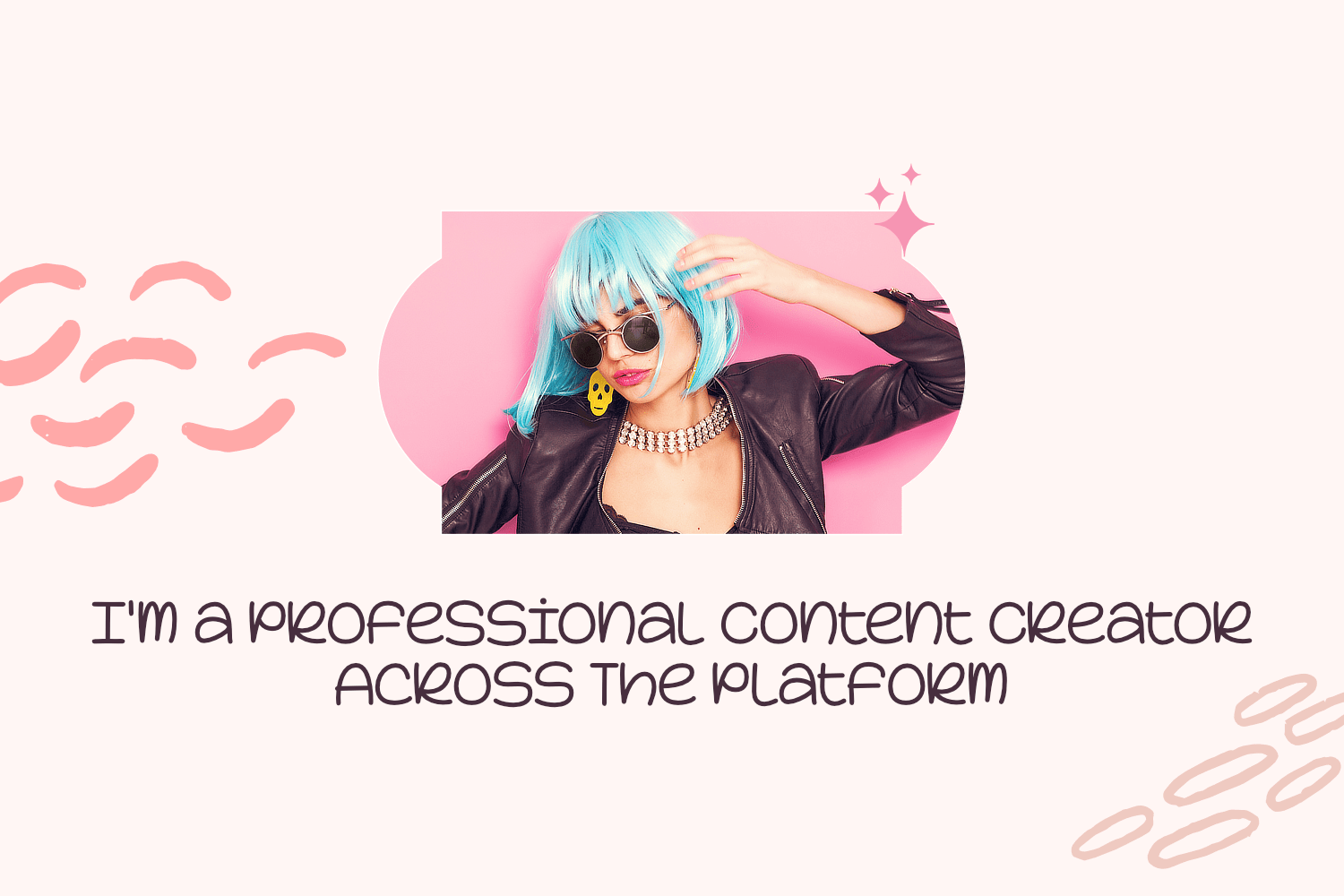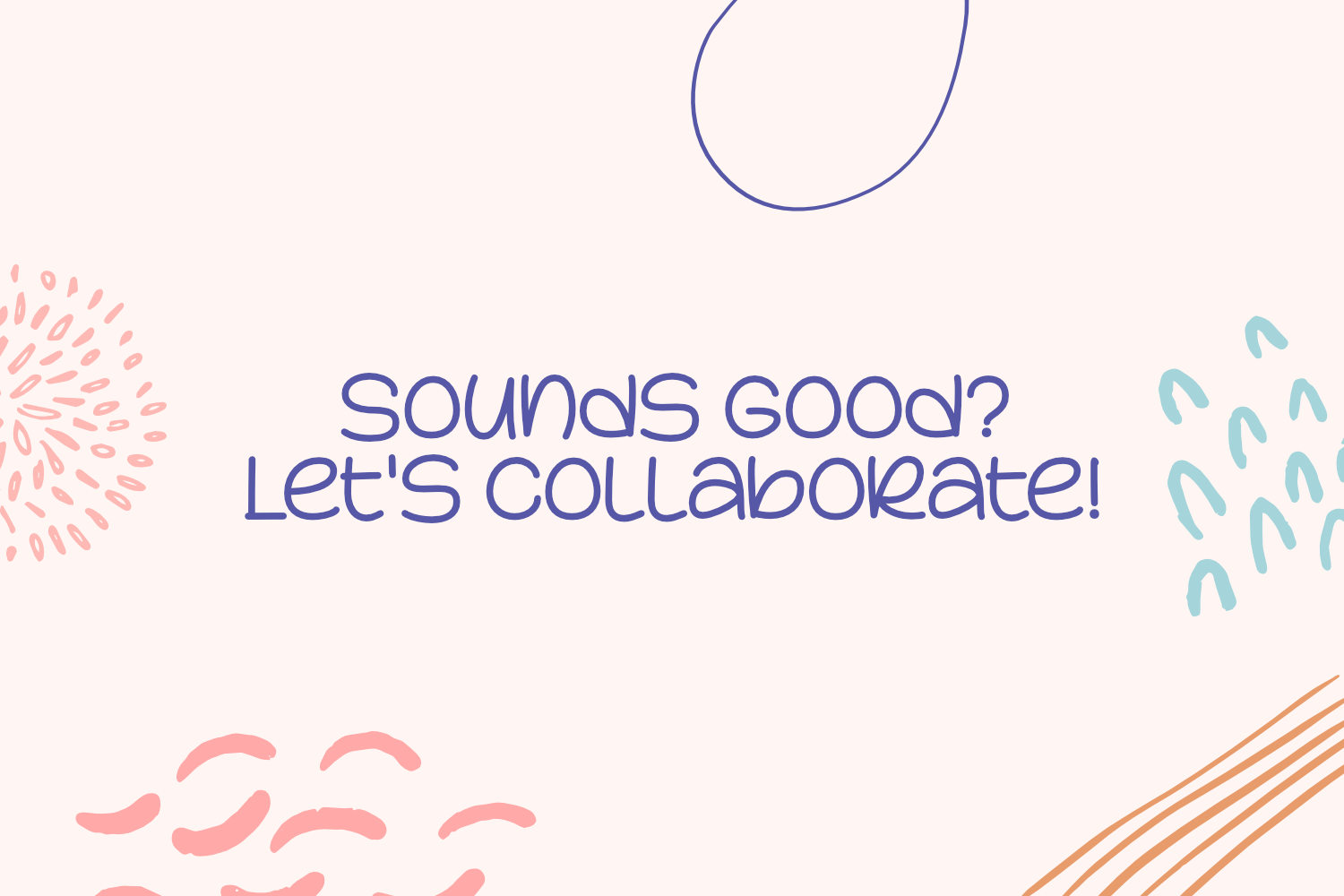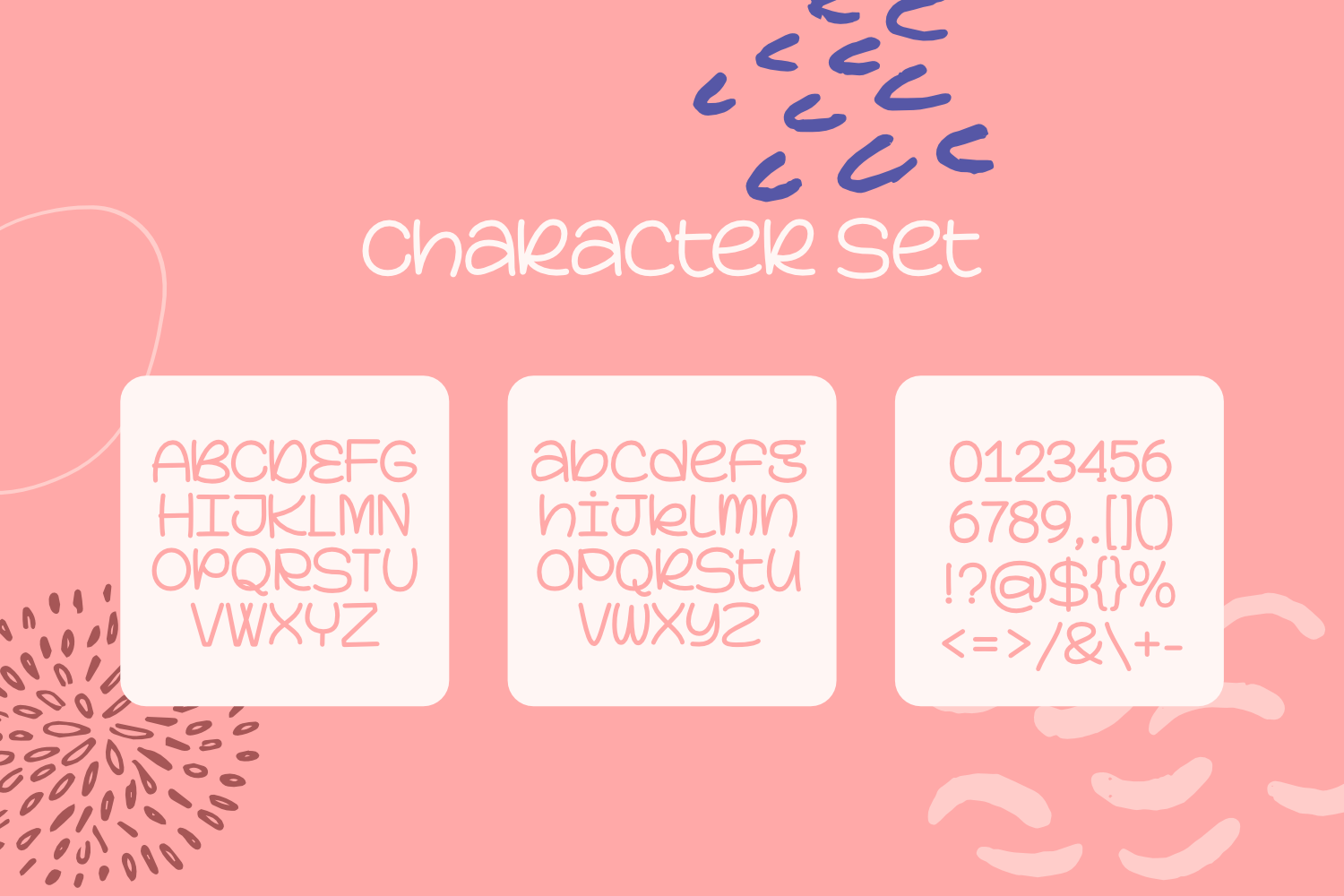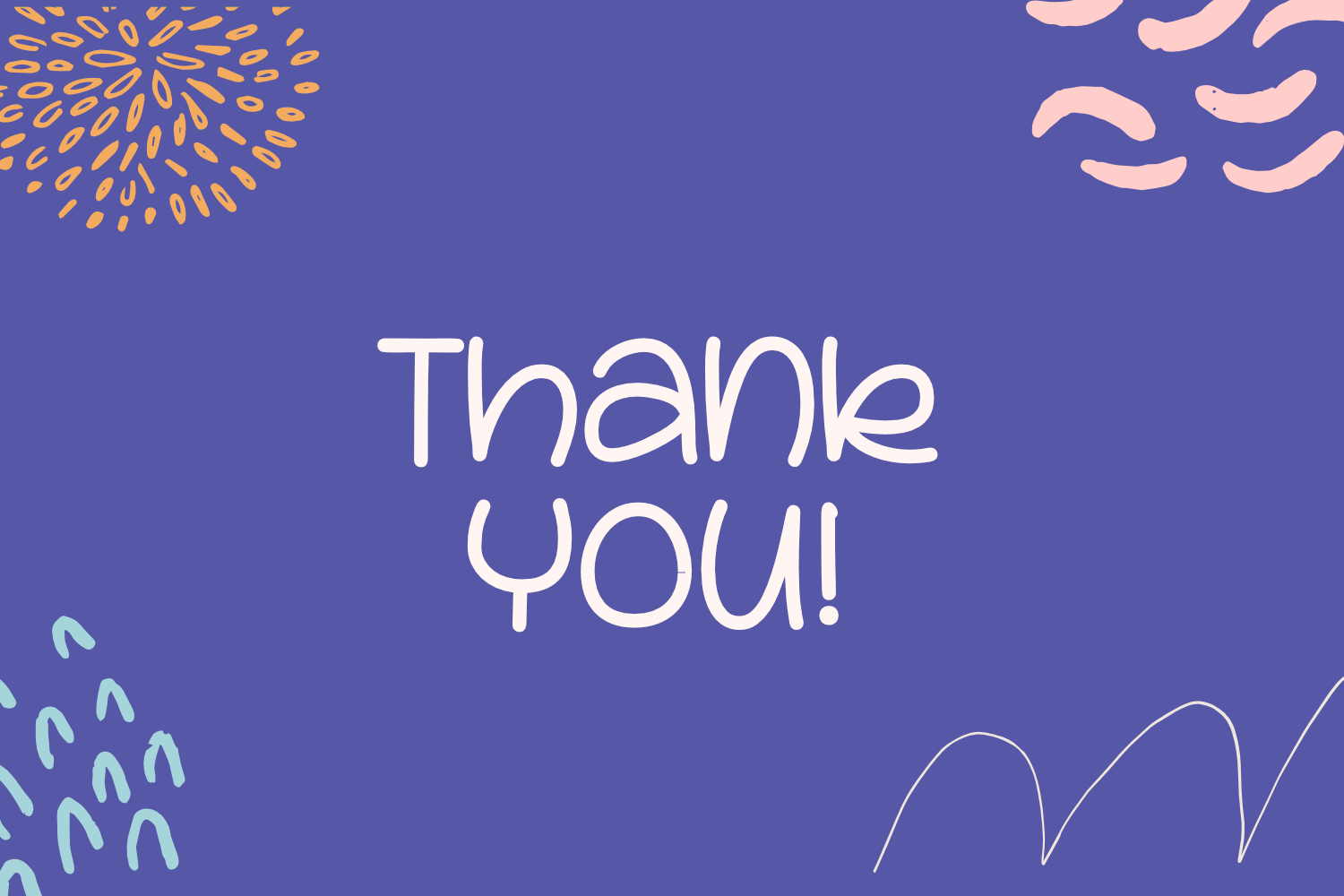
Ivory Silk Display Font
It’s an original, fun and playful display font. Its well rounded and slightly stocky figures make this typeface extremely versatile! It can uplift the look of almost all your beautiful creations!